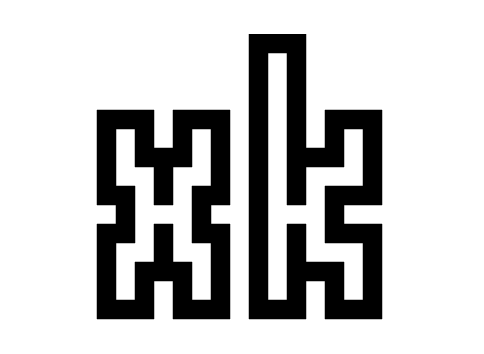
7.2.23 - Created lowercase
8.2.23 - Finished Basic latin (With help from Elmoyenique)
Have you thought about finishing the font, adding numbers, capital letters, etc...? I've attached a couple of suggestions for the x and k, which are a bit hard to read, IMHO.